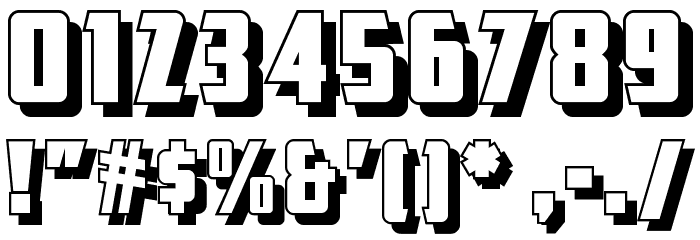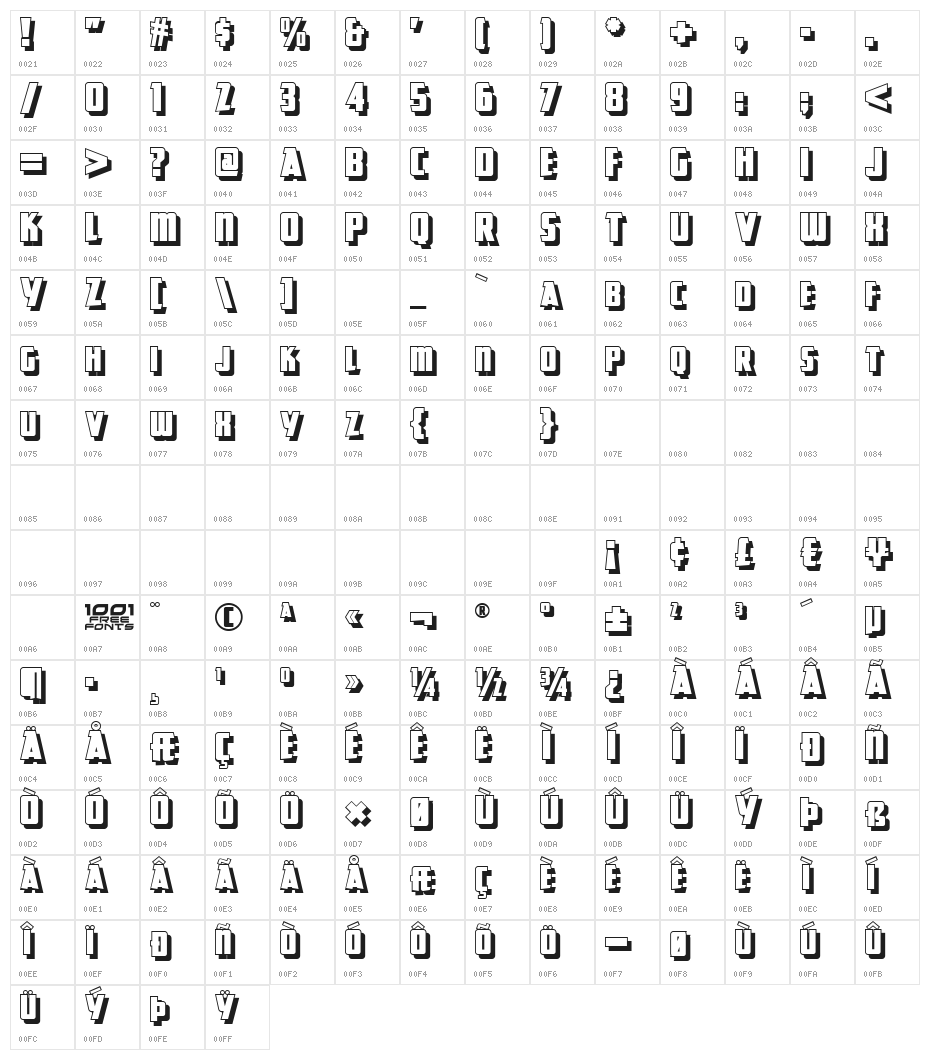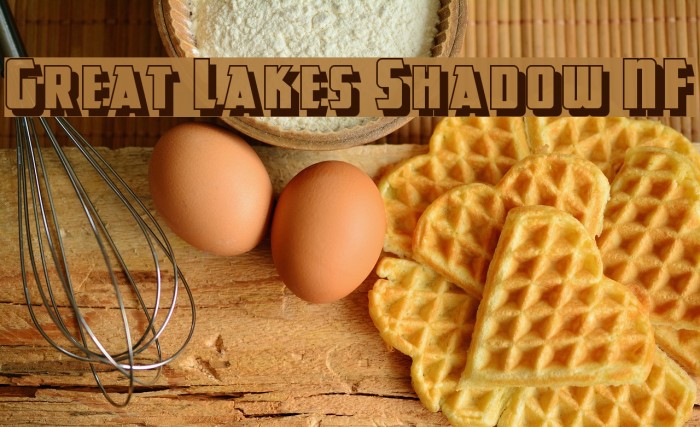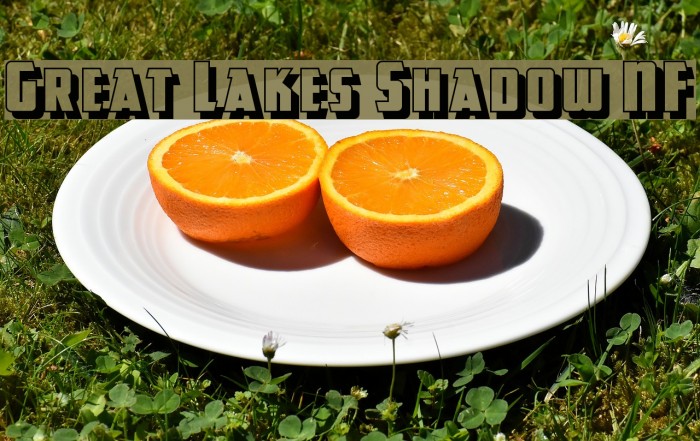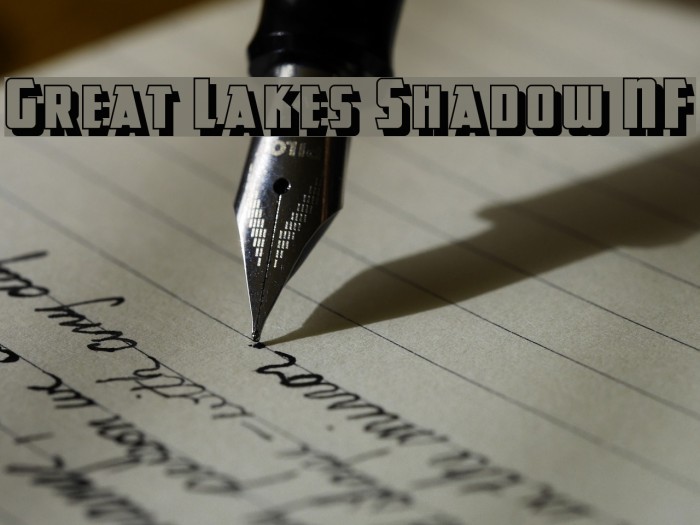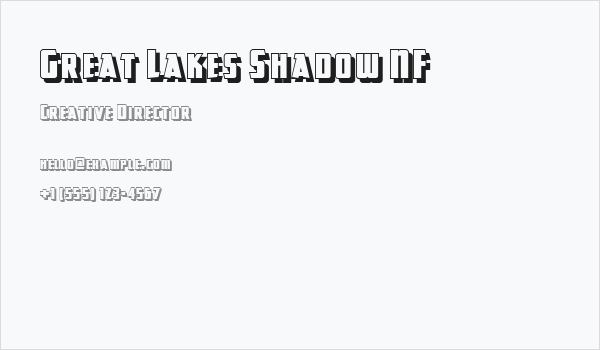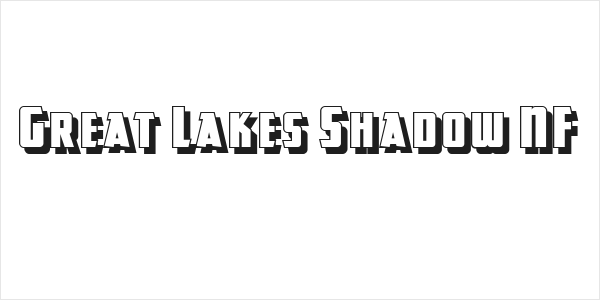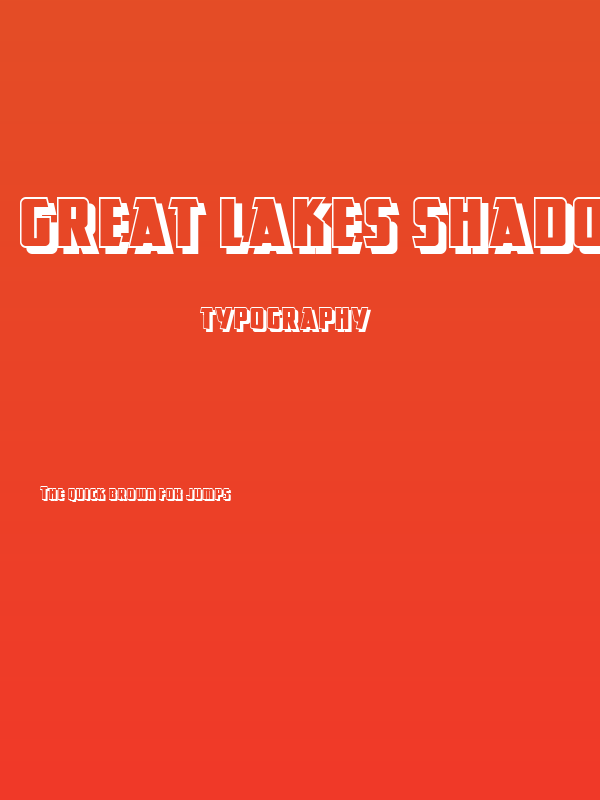
Great Lakes Shadow NF Font
Great Lakes Shadow NF Description
This font features a bold, three-dimensional shadow effect that gives it a striking and impactful appearance. The characters are blocky and geometric, with a strong presence that commands attention. The shadowing adds depth and a sense of movement, making it ideal for designs that require a dynamic and eye-catching element. The uppercase and lowercase letters maintain a consistent style, with sharp angles and clean lines. The numerals and special characters are equally bold, ensuring uniformity across all text elements.
| Proposed Projects | Ideal for posters, headlines, logos, and any design needing a bold, attention-grabbing typeface. |